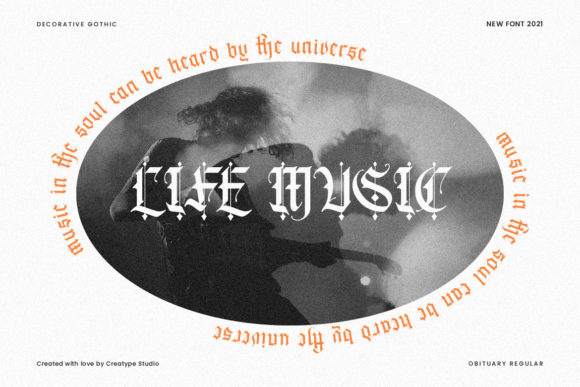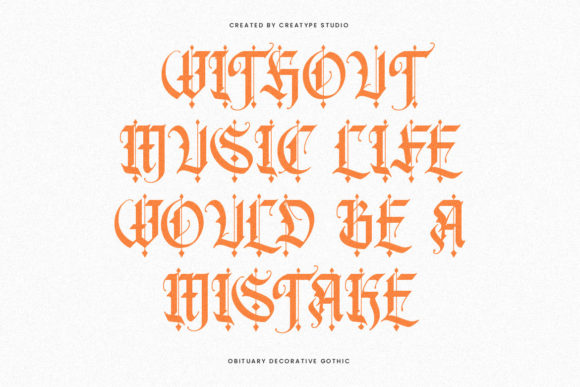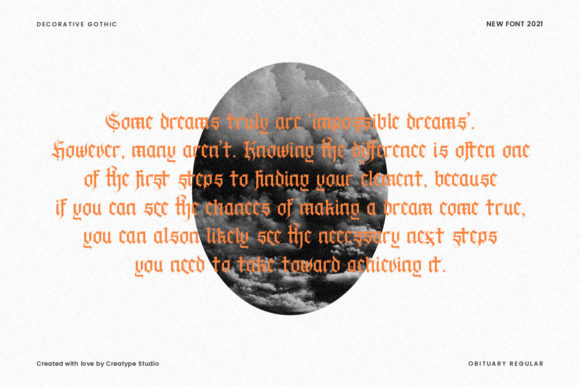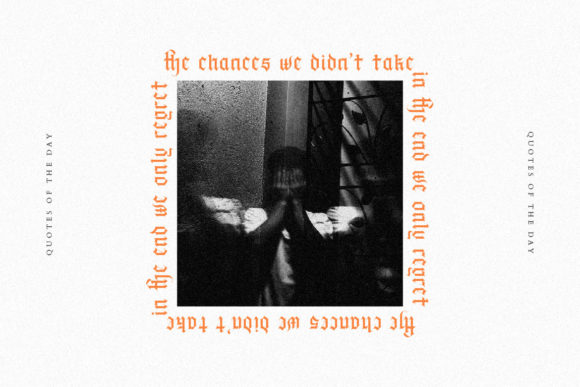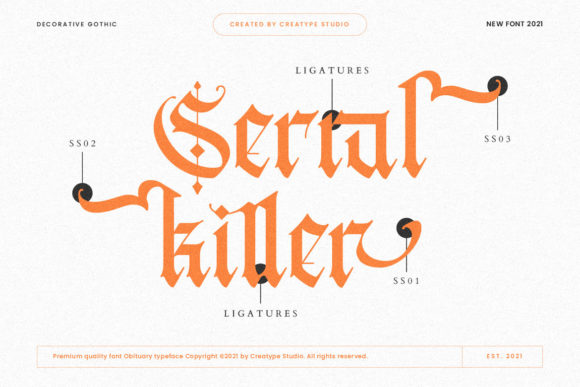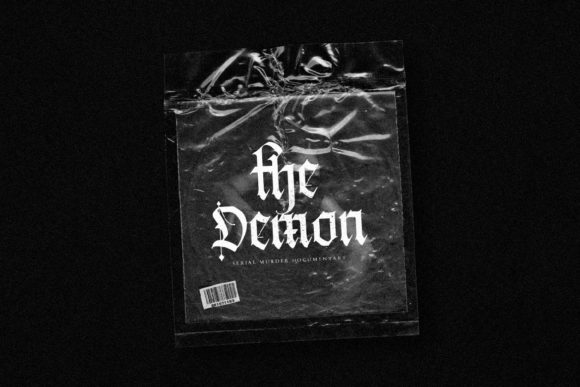
Introduction to Obituary Font Font
Fonts play a crucial role in design, and the Obituary Font font is a typeface that brings both character and versatility to any project. Whether you’re working on a branding project, a website, or a print design, the Obituary Font font offers a unique style that can elevate your work.
Obituary is an elegant and gothic blackletter font created in a clean and trendy style to suit any creative mind.
Key Features of Obituary Font Font
Why Choose Obituary Font Font?
The Obituary Font font is more than just a typeface – it’s a design tool that helps you communicate your message with style and clarity. Its unique character set and versatile design make it suitable for a wide range of applications, from elegant invitations to bold headlines.
With its carefully crafted letterforms and balanced proportions, the Obituary Font font ensures readability and visual appeal across all mediums.
What makes Obituary Font font special?
The Obituary Font font stands out with its unique design, exceptional readability, and versatility across various design applications.